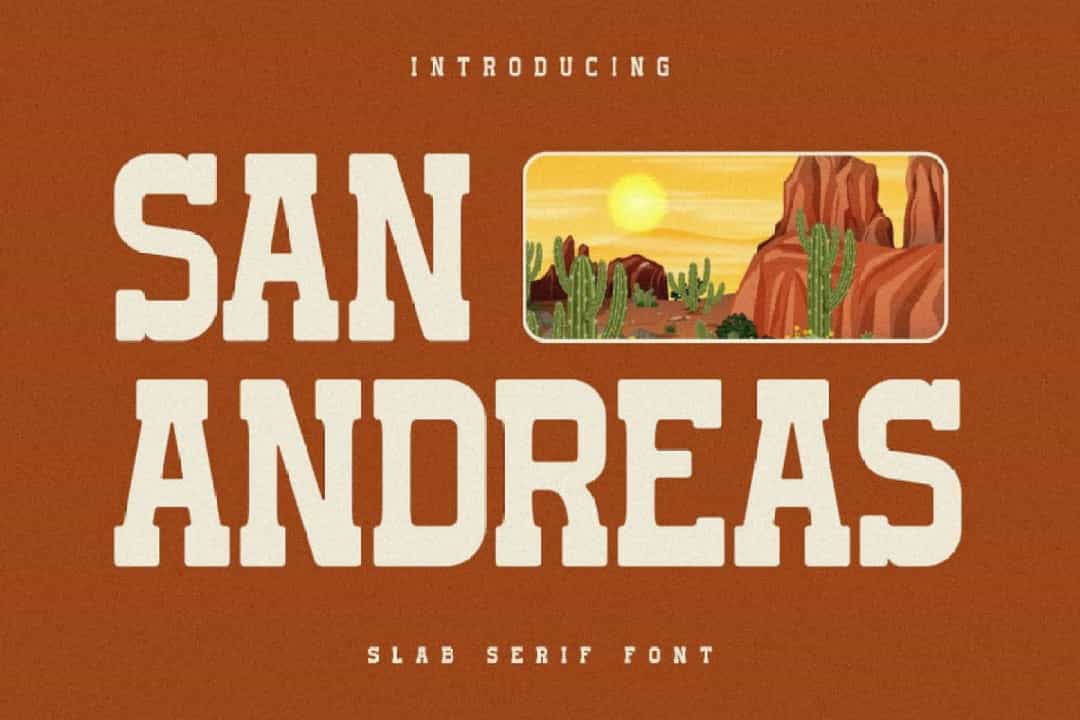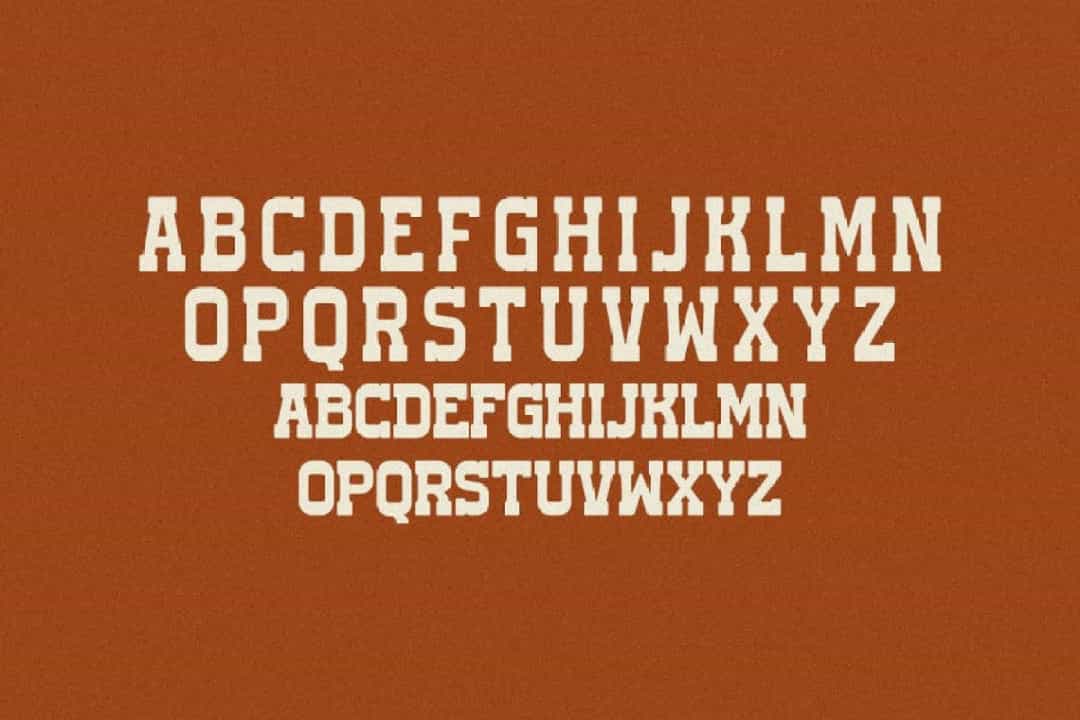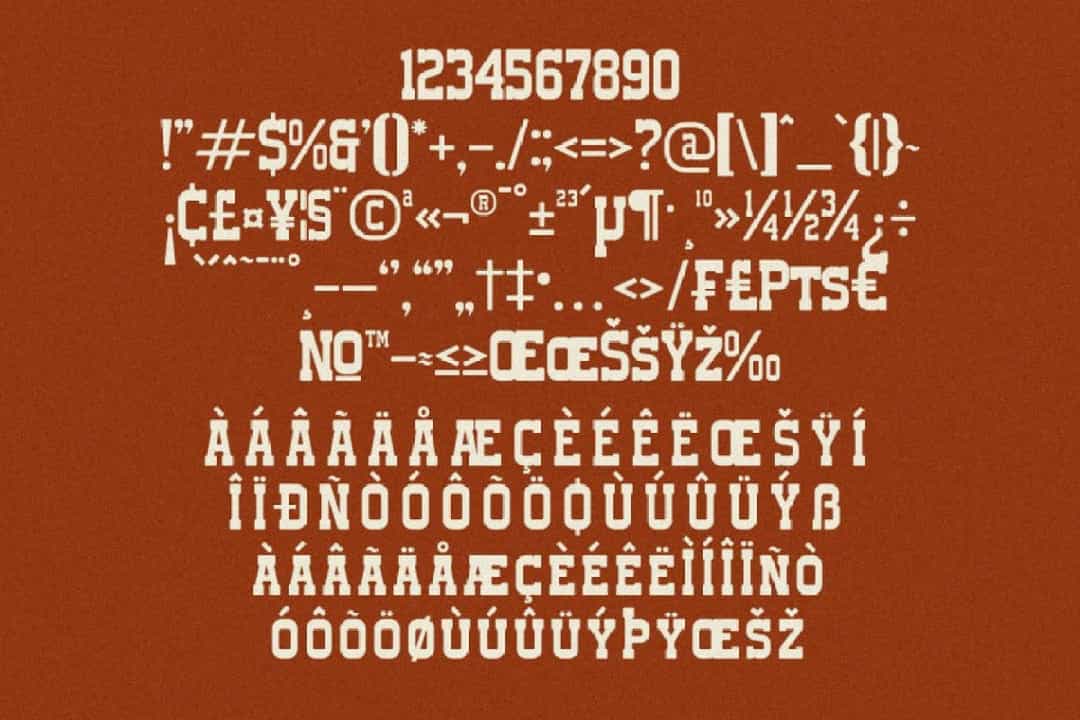
San Andreas is an elegant and modern slab serif font with an eye-catching style and appearance, ideal for creating classy logos, book, film titles, fashion clothing brands clothing magazines lettering quotes etc. This font offers many possibilities.